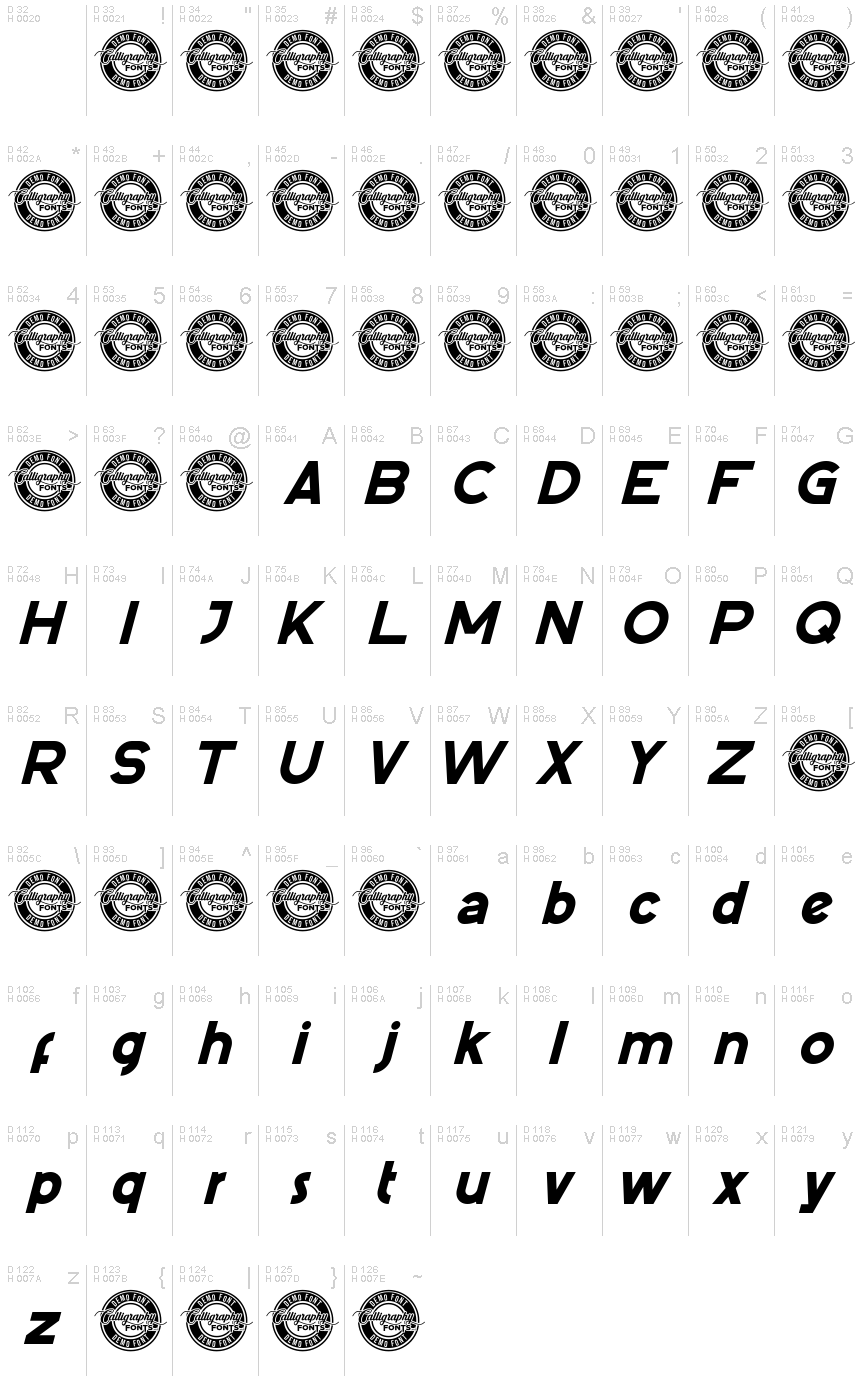
PictorialStyleDemo Italic
Pictorial Style Italic font, part of the Pictorial Style family by Calligraphy Fonts, is a captivating sans serif typeface that blends modernity with artistic flair. Its sleek, dynamic form features an expressive italic slant, adding motion and elegance to any design. The font's striking appearance makes it ideal for eye-catching titles, branding projects, and innovative digital interfaces.
Perfect for creatives searching for a free font that stands out in both print and digital formats, Pictorial Style Italic brings sophistication to logos, headlines, and advertising materials. Available for download, this distinctive typeface offers designers a versatile tool to enhance visual storytelling while maintaining readability. Its unique style ensures your projects leave a lasting impression.